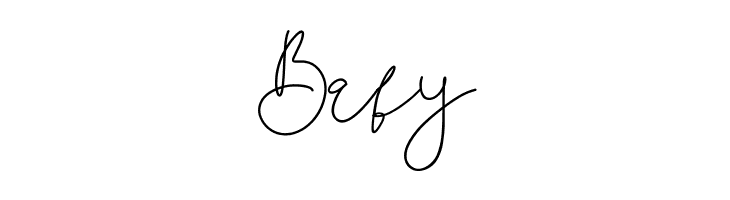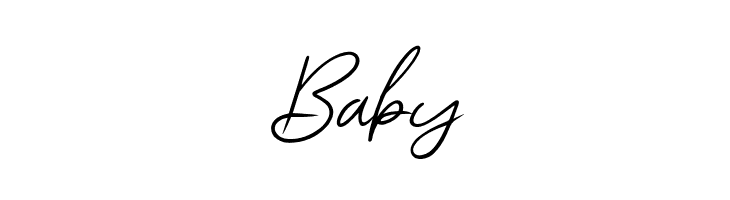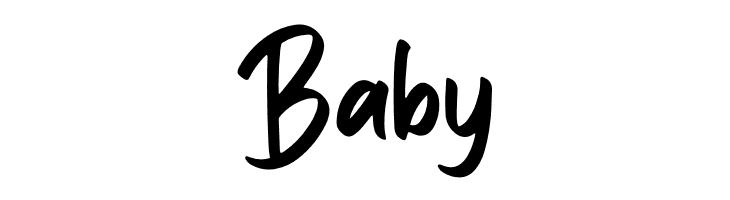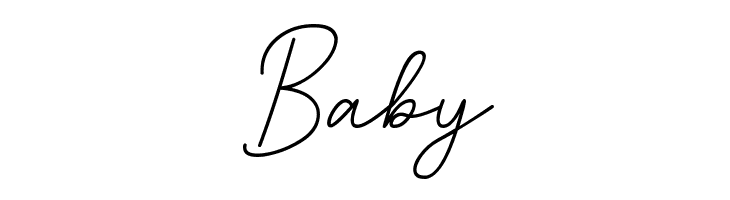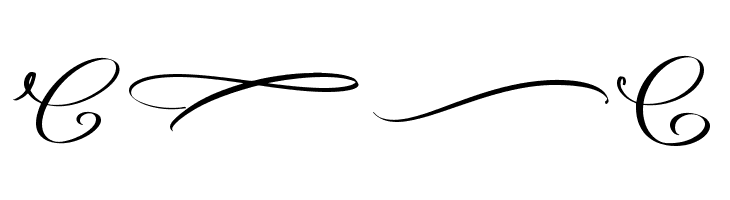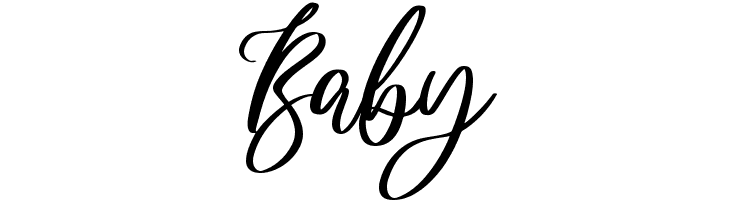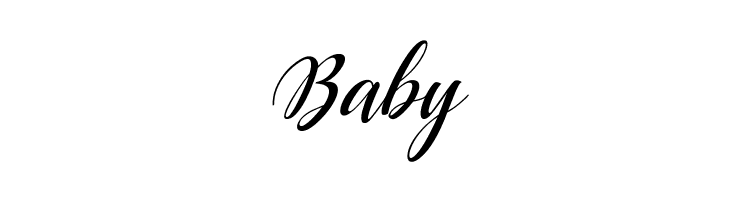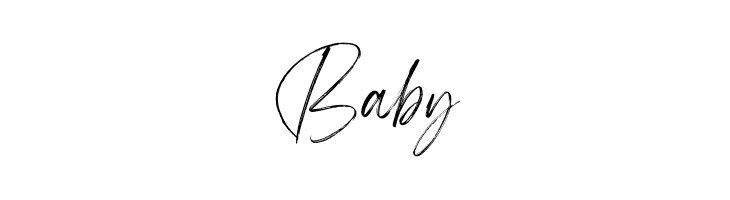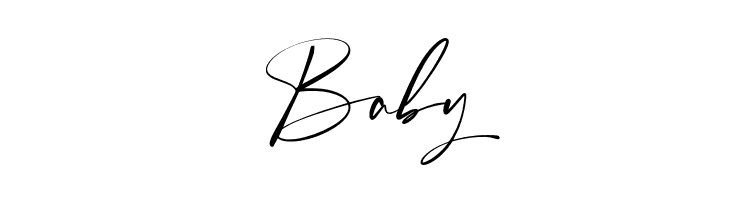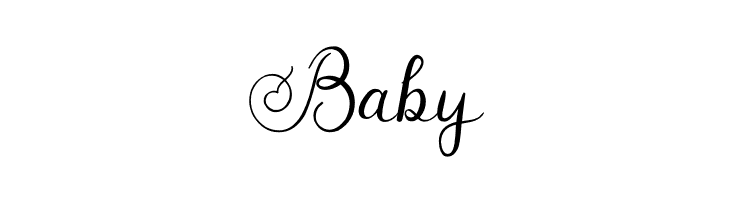
( Fonts by vilogsign - Nur Kholis - Personal-use only. For commercial use please contact owner. ) A bold, flowing script font with elegant, cursive strokes. Download 310 Downloads@WebFont
( Fonts by vilogsign - Nur Kholis - Personal-use only. For commercial use please contact owner. ) A playful, hand-drawn script font with smooth, flowing curves. Download 247 Downloads@WebFont
( Fonts by Din Studio - Donis Miftahudin - Personal-use only. For commercial use please contact owner. ) A flowing, elegant script font with a handwritten style and decorative swashes. Download 619 Downloads@WebFont
( Fonts by StringLabs - stringlabscreative.com - Personal-use only. For commercial use please contact owner. ) A graceful script font with fluid, cursive strokes and a sophisticated style. Download 20 Downloads@WebFont
( Fonts by StringLabs - stringlabscreative.com - Personal-use only. For commercial use please contact owner. ) A flowing, cursive script font with elegant, connected characters. Download 24 Downloads@WebFont
( Fonts by Hugefonts - Personal-use only. For commercial use please contact owner. ) A modern, elegant script font with flowing, cursive strokes. Download 36 Downloads@WebFont
( Fonts by Hugefonts - Personal-use only. For commercial use please contact owner. ) A cursive, handwritten font with elegant, flowing strokes. Download 78 Downloads@WebFont
( Fonts by Ahmad Rofingi - AR Studio - Personal-use only. For commercial use please contact owner. ) A modern, elegant script font with flowing curves and sophisticated style. Download 1155 Downloads@WebFont
( Fonts by MJB Letters - Muhammad Mujibulloh - Personal-use only. For commercial use please contact owner. ) A graceful script font with elegant loops and swirls. Download 50 Downloads@WebFont
( Fonts by Balpirick - Personal-use only. For commercial use please contact owner. ) A sophisticated script font with elegant, flowing cursive letterforms. Download 51 Downloads@WebFont
( Fonts by StringLabs - stringlabscreative.com - Personal-use only. For commercial use please contact owner. ) An elegant script font with intricate swirls and flowing strokes. Download 42 Downloads@WebFont
( Fonts by StringLabs - stringlabscreative.com - Personal-use only. For commercial use please contact owner. ) An elegant script font with intricate swirls and decorative flourishes. Download 39 Downloads@WebFont
( Fonts by Javatype Studio - Tio Yulianto - Personal-use only. For commercial use please contact owner. ) A classic, elegant script font with flowing, cursive letterforms. Download 39 Downloads@WebFont
( Fonts by Javatype Studio - Tio Yulianto - Personal-use only. For commercial use please contact owner. ) A flowing, cursive script with elegant, interconnected letters. Download 25 Downloads@WebFont
( Fonts by ToniStudio - Fatoni Nurman - Personal-use only. For commercial use please contact owner. ) A playful and elegant script font with flowing cursive design and decorative flourishes. Download 174 Downloads@WebFont
( Fonts by Sarif Letter - Personal-use only. For commercial use please contact owner. ) A cursive, elegant script font with interconnected letters and smooth strokes. Download 39 Downloads@WebFont
( Fonts by RaffaSyad Studio - www.creativefabrica.com/designer/r-studio/ - Personal-use only. For commercial use please contact owner. ) A sophisticated script font with elegant loops and swashes, perfect for decorative use. Download 1268 Downloads@WebFont
( Fonts by Mozatype - Personal-use only. For commercial use please contact owner. ) An elegant script font with flowing, cursive letters and decorative flourishes. Download 27 Downloads@WebFont
( Fonts by Mozatype - Personal-use only. For commercial use please contact owner. ) A sophisticated script font with flowing, interconnected letters and ornate uppercase characters. Download 71 Downloads@WebFont
( Fonts by Kruweks Studio - Personal-use only. For commercial use please contact owner. ) A bold, dynamic script font with calligraphic influences and elegant flourishes. Download 34 Downloads@WebFont
( Fonts by Graphicxell - Usman Al Baehaqi - Personal-use only. For commercial use please contact owner. ) A bold, playful font with exaggerated, uneven strokes and a whimsical style. Download 111 Downloads@WebFont
( Fonts by Colllab Studio - Personal-use only. For commercial use please contact owner. ) An elegant and sophisticated cursive script font with flowing, graceful loops. Download 27 Downloads@WebFont
( Fonts by Colllab Studio - Personal-use only. For commercial use please contact owner. ) An elegant, decorative font with intricate swashes and flourishes. Download 29 Downloads@WebFont
( Fonts by Din Studio - Donis Miftahudin - Personal-use only. For commercial use please contact owner. ) A modern, handwritten script with elegant, flowing strokes and medium contrast. Download 715 Downloads@WebFont
( Fonts by Bluestype Studio - Jefri Dwi Alfatah - Personal-use only. For commercial use please contact owner. ) A playful, handwritten font with bold, irregular strokes. Download 41 Downloads@WebFont